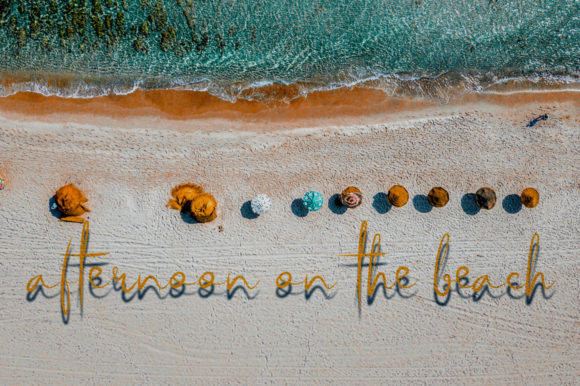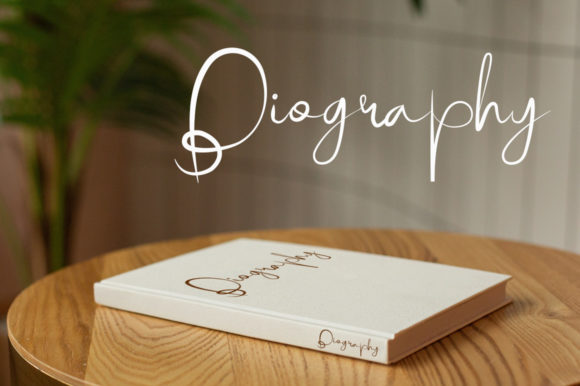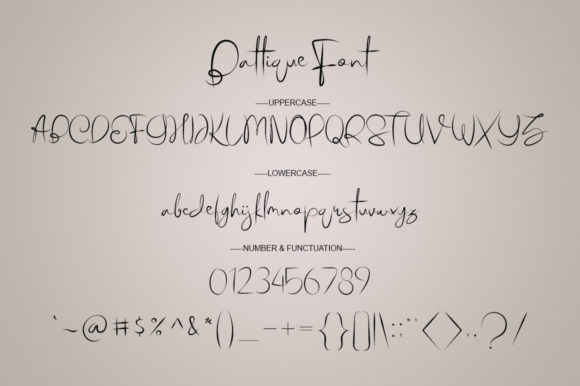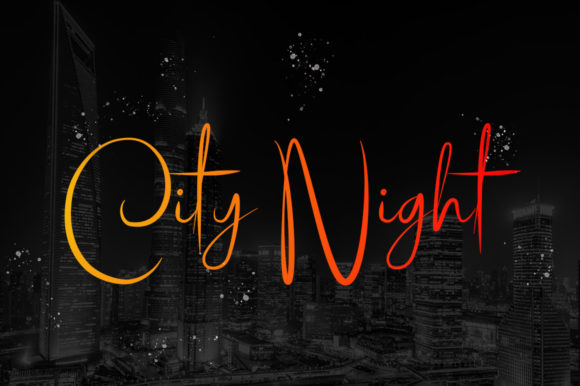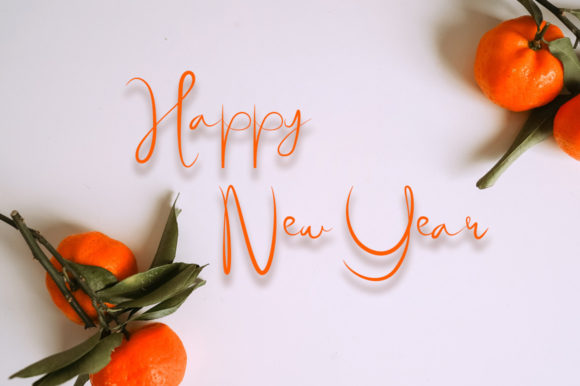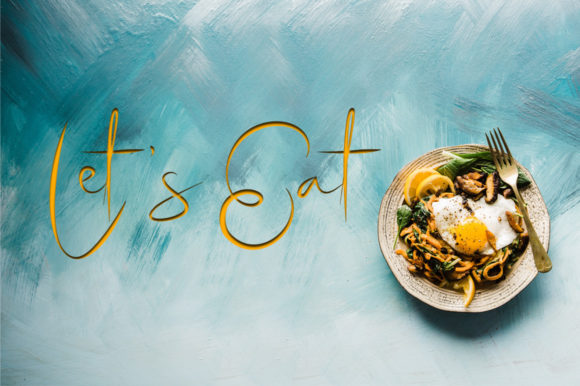
Battique Font: Elevate Your Designs with a Beautiful Handwritten Touch
Are you a designer or crafter looking to add a personal touch to your creations? Look no further than the Battique Font, a stunning handwritten font designed to take your packaging products, labels, flyers, posters, and more to the next level. With its unique and elegant style, Battique is the perfect addition to any design that requires a high-quality, handwritten touch.
What is Battique Font?
Battique is a beautiful handwritten font carefully crafted to bring a touch of sophistication and elegance to your designs. Its flowing lines and delicate curves make it perfect for a wide range of applications, from packaging products and labels to flyers, posters, invitation cards, name cards, and mockup products. Whether you’re a professional designer or a crafty DIY enthusiast, Battique is sure to become your go-to font for adding a personal touch to your creations.
Key Features of Battique Font
- Handwritten style: Battique boasts a beautiful, handwritten style that’s perfect for adding a personal touch to your designs.
- High-quality: With its clear and precise lines, Battique is a high-quality font that’s perfect for both print and digital applications.
- Versatile: From packaging products to posters, invitation cards to mockup products, Battique is a versatile font that can be used in a wide range of applications.
- Elegant and sophisticated: Battique’s unique style adds a touch of elegance and sophistication to any design, making it perfect for designers and crafters who want to create something truly special.
Why Choose Battique Font?
So why choose Battique Font for your designs? Here are just a few reasons:
- Add a personal touch: With Battique, you can add a personal touch to your designs that’s sure to set them apart from the crowd.
- Stand out from the competition: In a world of generic fonts, Battique’s unique style is sure to make your designs stand out and grab attention.
- Perfect for branding: Battique’s elegant and sophisticated style makes it perfect for branding applications, from logos to packaging products.
- Easy to use: With its clear and precise lines, Battique is easy to read and use in a wide range of applications.
- Experiment with different sizes and colors: Battique looks great in a wide range of sizes and colors, so don’t be afraid to experiment and find the perfect combination for your design.
- Pair it with other fonts: Battique pairs well with a wide range of fonts, from serif to sans serif. Try pairing it with other fonts to create a unique and eye-catching design.
- Use it for headlines and body text: Battique is perfect for both headlines and body text, making it a versatile font that can be used throughout your design.
Whether you’re a professional designer or a crafty DIY enthusiast, Battique is sure to become your go-to font for adding a touch of elegance and sophistication to your creations. So add it to your designs today and make them extraordinary!